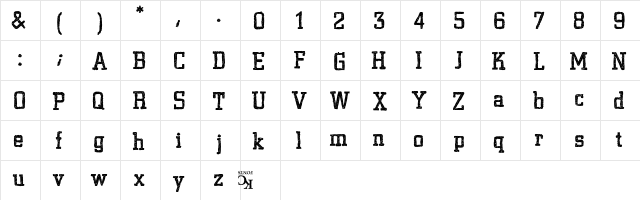
Varsity Playbook Regular
Design Context for Varsity Playbook Typeface
Varsity Playbook brings high-energy athletic personality to the page — its confident, muscular forms are built for impact.
A natural choice for gym brands, fantasy sports, jersey lettering, and action-driven headlines.
Pro Tip: Use Varsity Playbook in all-caps headlines where its athletic energy can fully express itself. Pair with a solid, simple sans for supporting text.